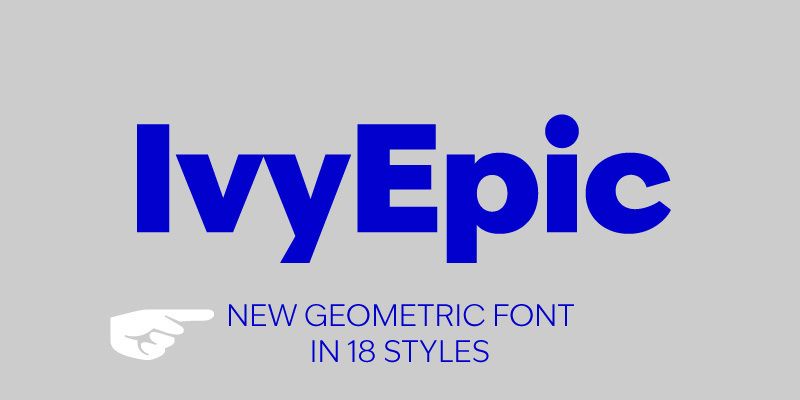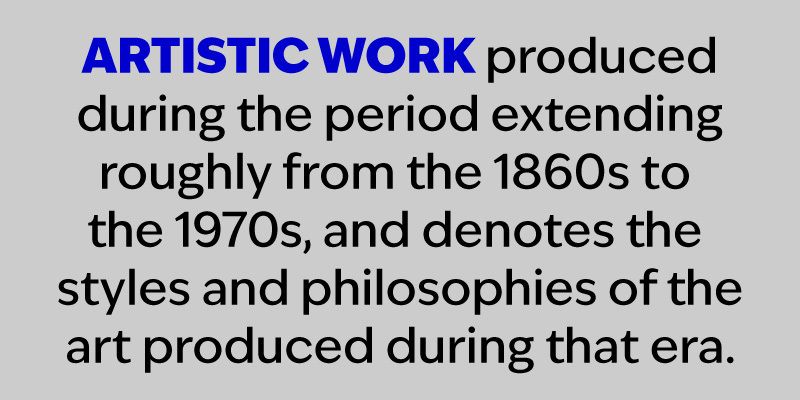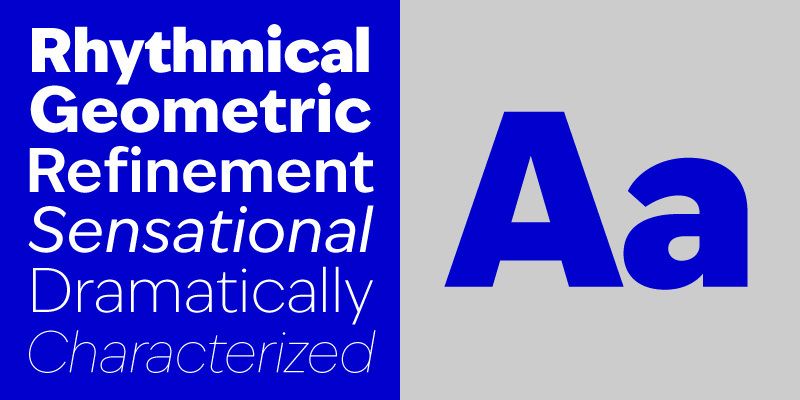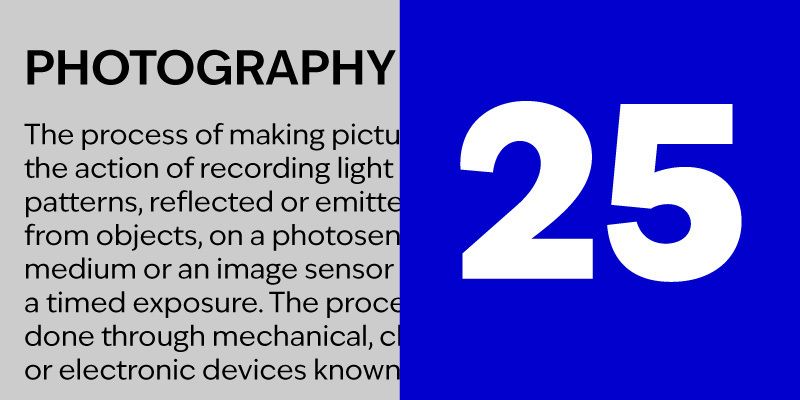
IvyEpic is a fusion of the geometric sans and grotesque from the 1920s. Overall, the typeface bears a higher contrast compared to the usual sans serif, providing excellent legibility even in smaller type sizes. The most distinctive features are the tapered tails and terminals, which leave more space open in the counters of the bolder weights, giving a friendly, warm tone. With 36 total styles — plus a variable version — IvyEpic is a versatile sans, ready to work for editorial, corporate design, and new media.